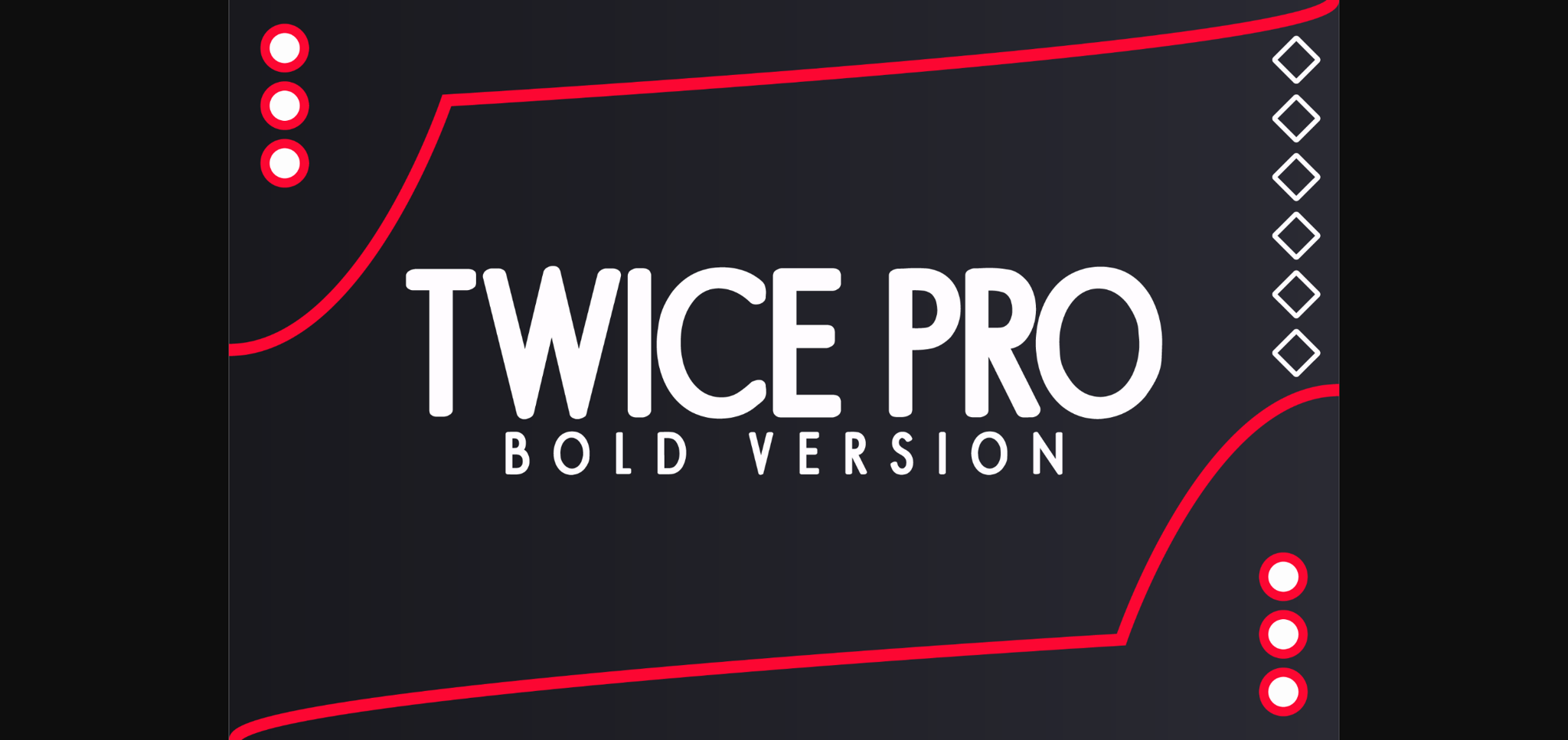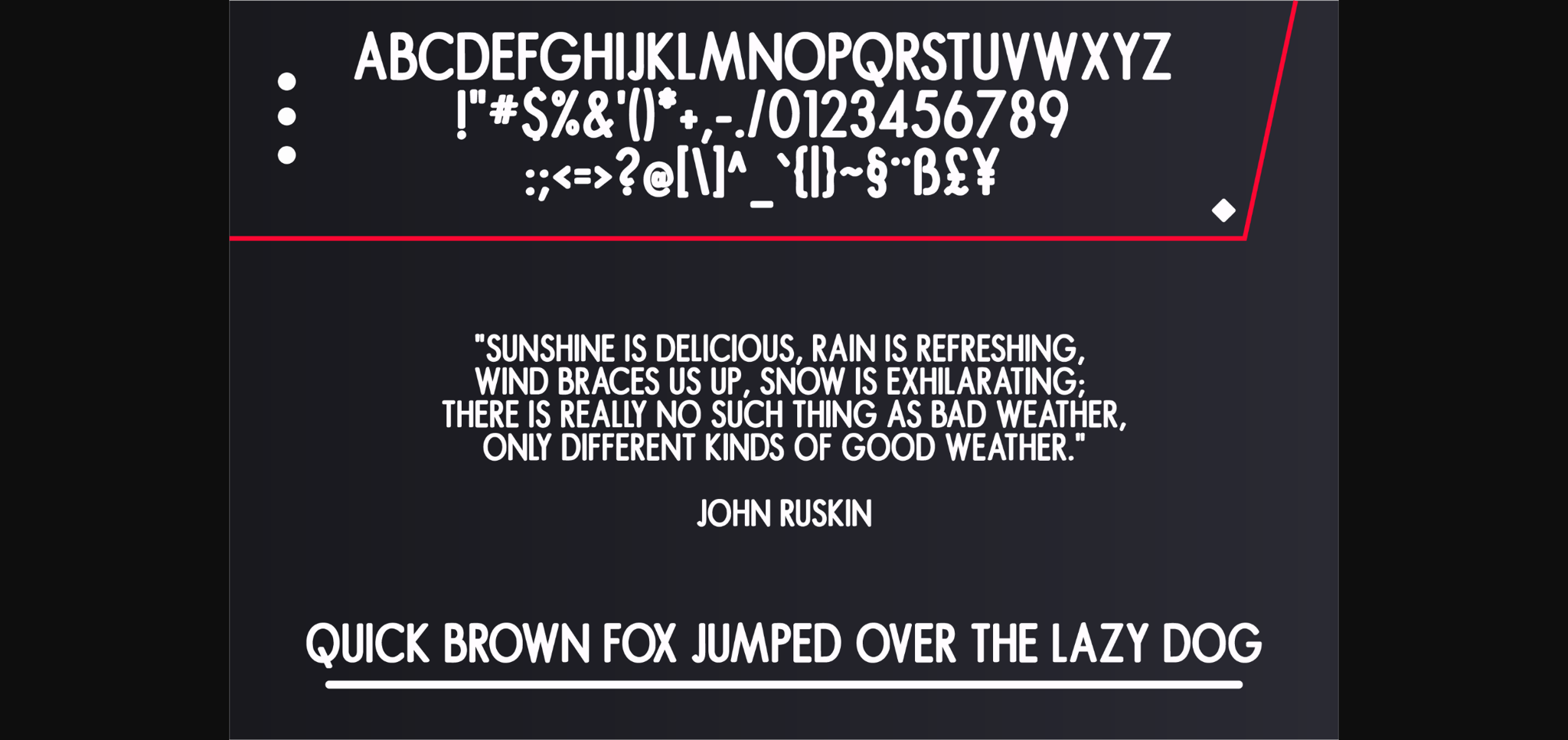
Twice Pro Bold Font
About Twice Pro Bold Font
Twice Pro Bold is a font that adopts a smooth and soft geometric style. It is perfectly suited for a wide variety of projects!